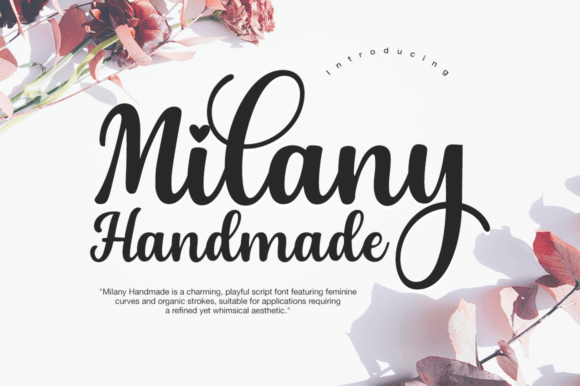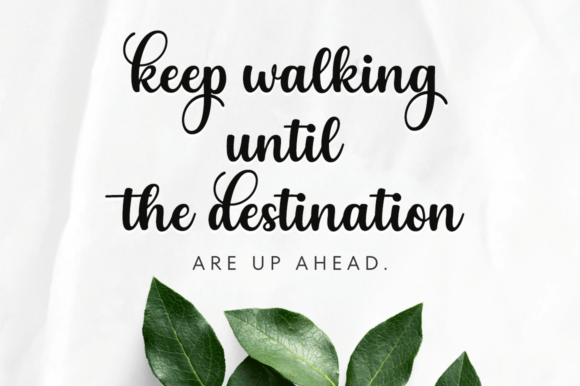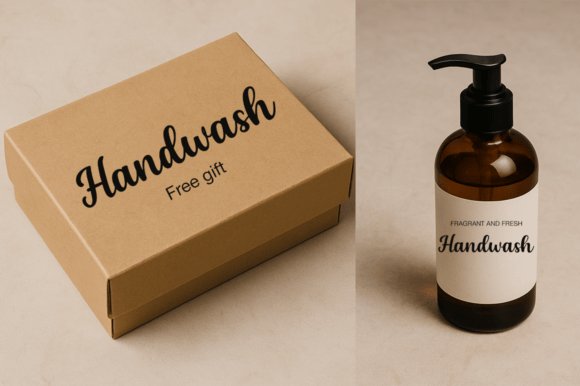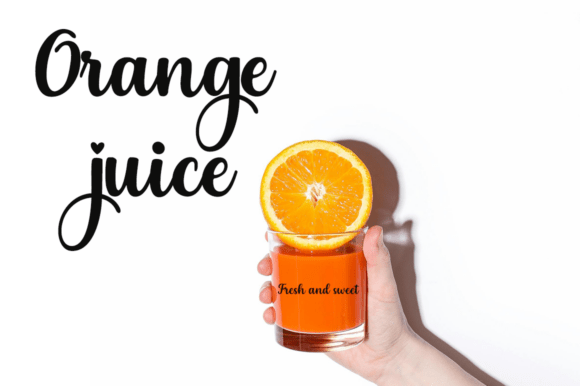
Milany Handmade Font
Experience the irresistible charm of Milany Handmade, a lighthearted script font possessing all the allure of delicate feminine lines. Discover the harmony of its organic strokes, graciously leading from one letter to the next with a playful finesse. Enchantingly elegant yet filled with whimsy, Milany Handmade is the perfect match for projects that aim for a wild sense of refinement.